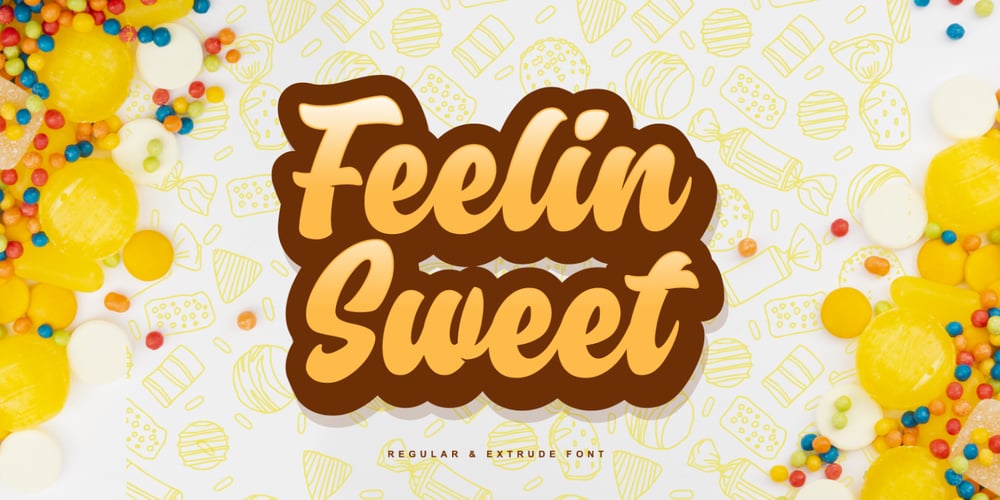
Feelin Sweet
Feelin Sweet font
Feelin Sweet Font Family was designed by Ardian Nuvianto and published by Ardian Nuvianto. Feelin Sweet contains 2 styles and family package options. Hello.I want present my new font called “Feelin Sweet”.This font have have very smooth curve and also have crunchy look.This font come with 2 styles. Regular font and Extrude font.it comes to make your project easier. This font can make your font more have a depth look with adding “Feelin Sweet” extrude font.This font will be the best choice for many project such as banner, brand packaging, cookies brand, snack brand, dessert design, cake logo design, mascot design letter, etc.This font also have Ligatures features.Enjoy and stay crunchy :)Drop me message if you have any questions.Or you can mail me damarkurung8@gmail.comThanks